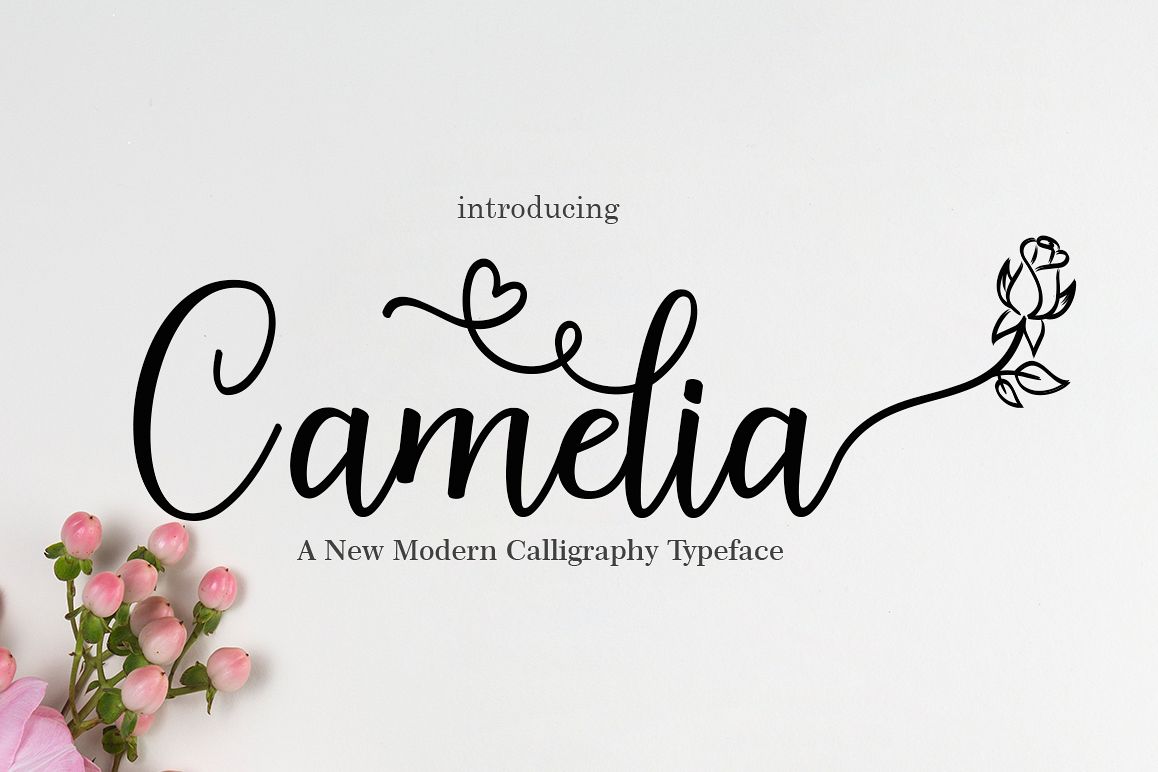
Camelia
Camelia-Regular
Camelia Scripts are fonts of Memories line and Memories regular stylish calligraphy that have a varied base line, fine lines, classic and elegant touches. Can be used for various purposes. Such as title, signature, logo, wedding invitation, t-shirt, letterhead, nameplate, label, news, poster, badge etc.